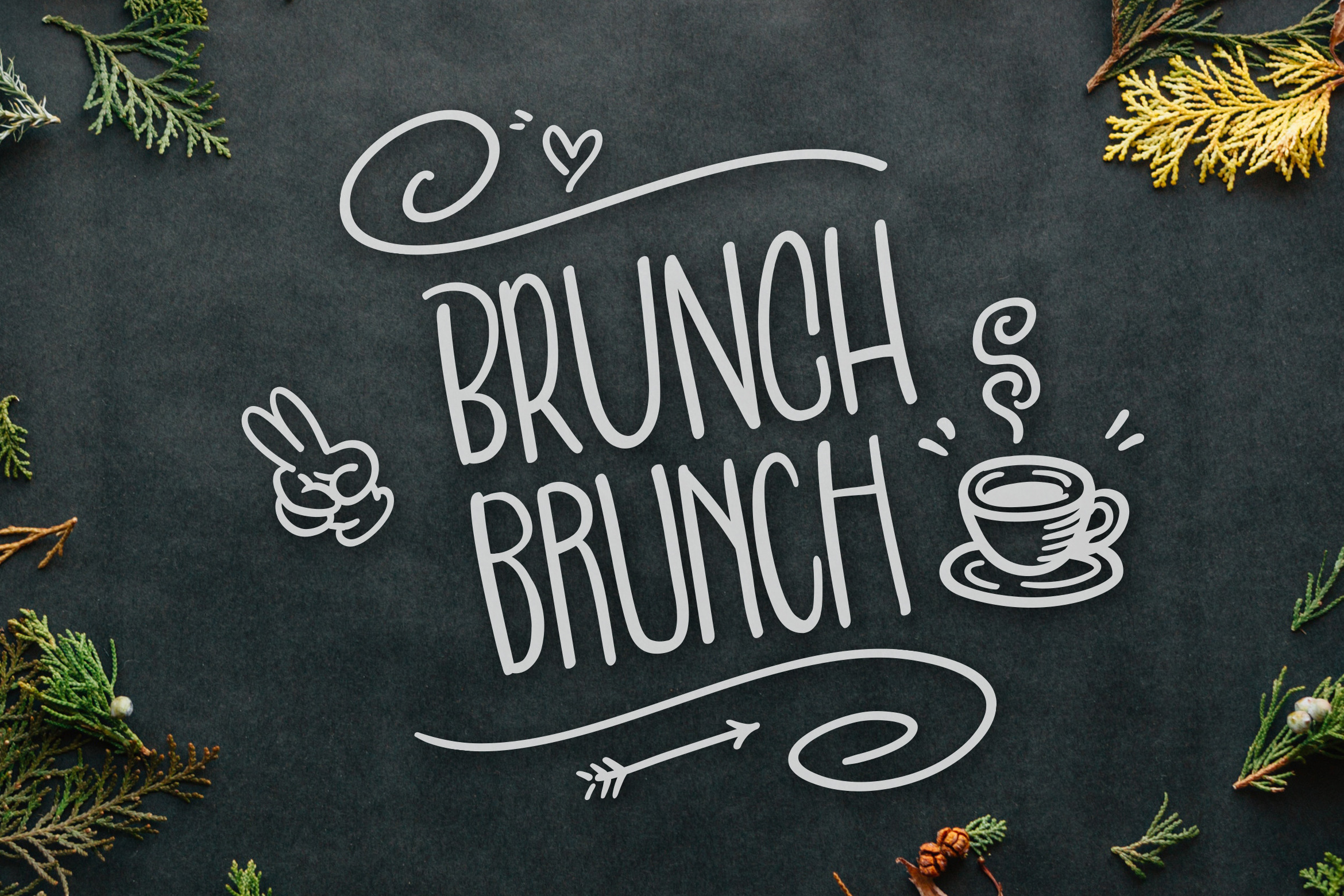
Brunch Brunch Font
A beautifully handwritten & designed font, Has a condensed, fun & young feel. Can be used for any purpose.
- Stylistic Alternate
- Handwritten font